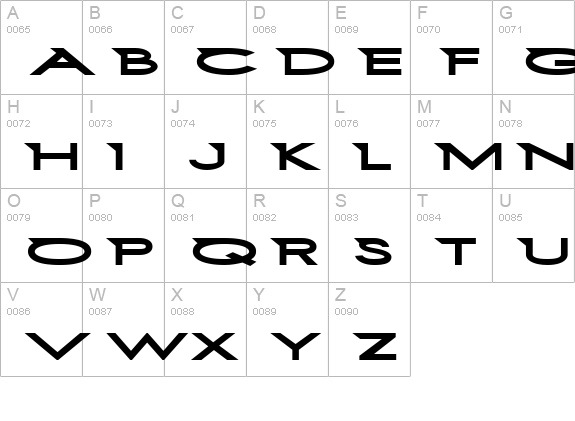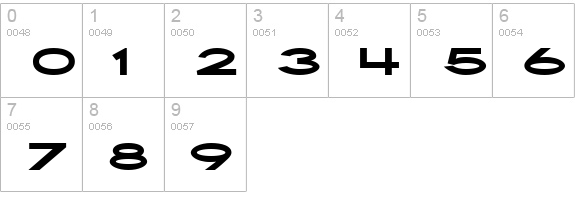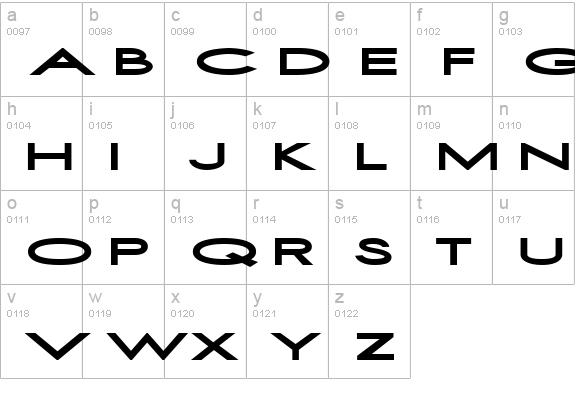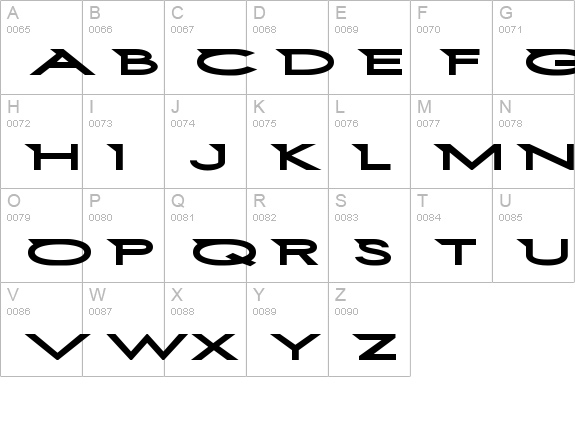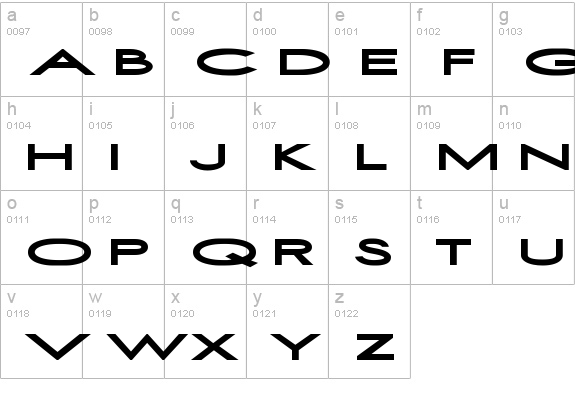
First Blind 2 font is a stunning display typeface that combines modern elegance with a touch of mystery. Its unique design features intricate lines and curves that create a sense of movement and sophistication. This font is perfect for adding a bold and stylish look to your projects, whether you're designing a logo, poster, or website. What makes First Blind 2 font even more appealing is that it is completely free to download. You can easily access this versatile typeface at FontsMarket.com, where you can explore a wide range of fonts for all your design needs. Don't miss out on the opportunity to enhance your creative projects with the First Blind 2 font today!